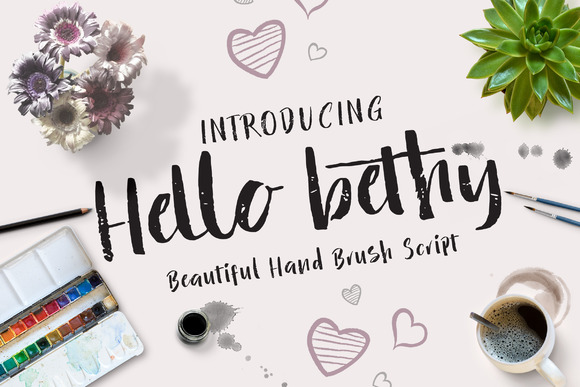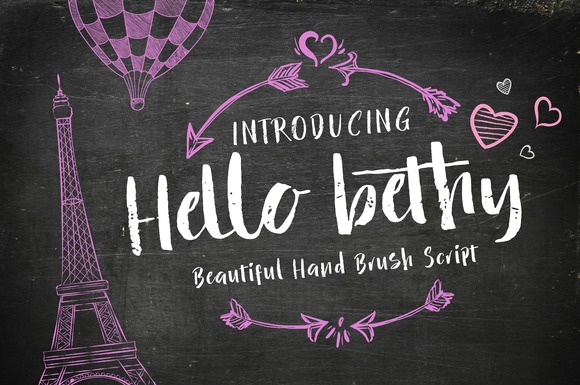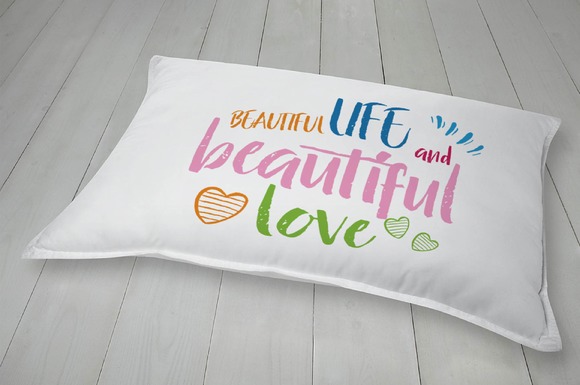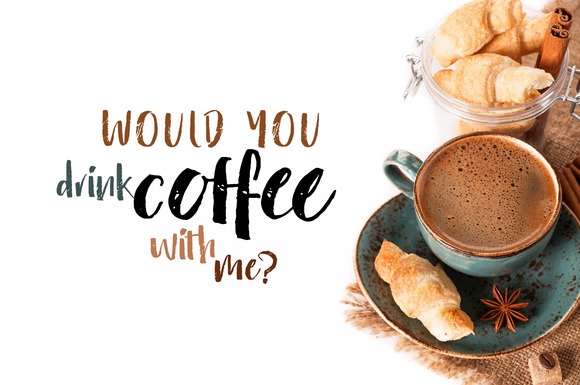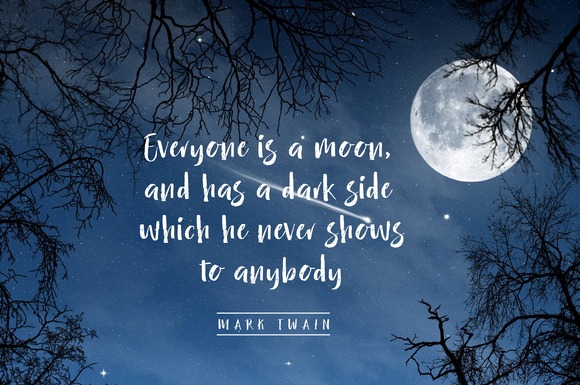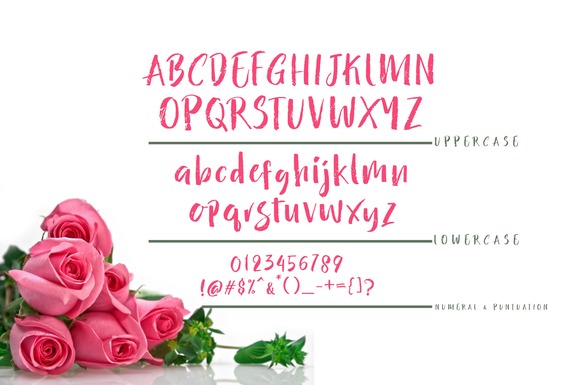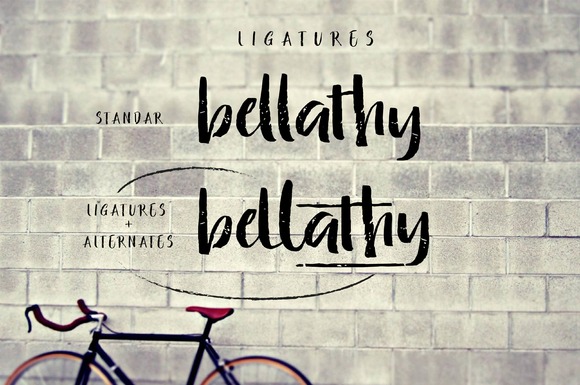
Hello Bethy Font
About Hello Bethy Font
Hello Bethy is a beautiful brush script typeface. It can be used for various purposes such as headings, logos, invitations, t-shirt designs, greeting cards, posters, labels, book covers, brochures, and much more! Hello Bethy comes with a complete set of standard characters, punctuation, and international glyph’s, The alternative characters were divided into several OpenType features such as Ligatures, alternates, and PUA Unicode (specially coded fonts)